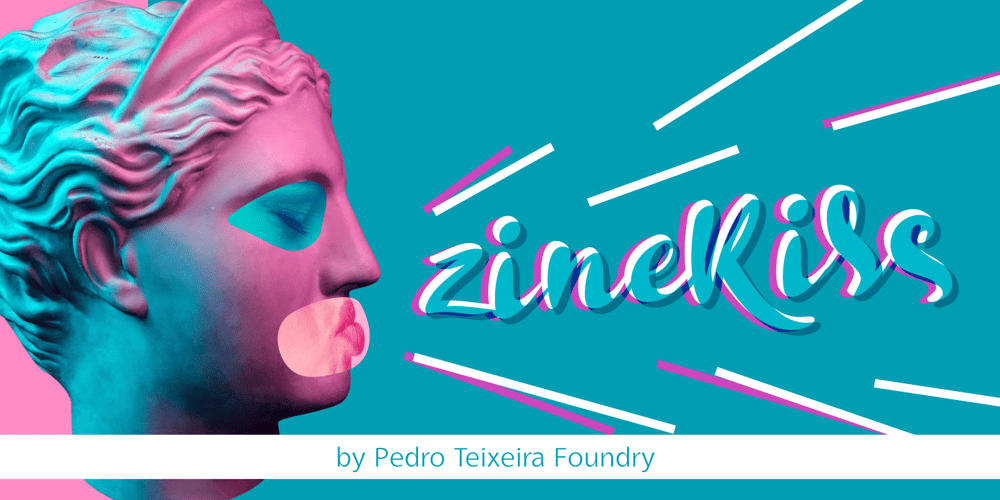
Zinekiss Font Family was designed by Pedro Teixeira and published by Pedro Teixeira. Zinekiss contains 2 styles and family package options. Zinekiss – for the love of black ink and zine culture. Zinekiss, is a font with a very natural/organic handrawn script of black ink